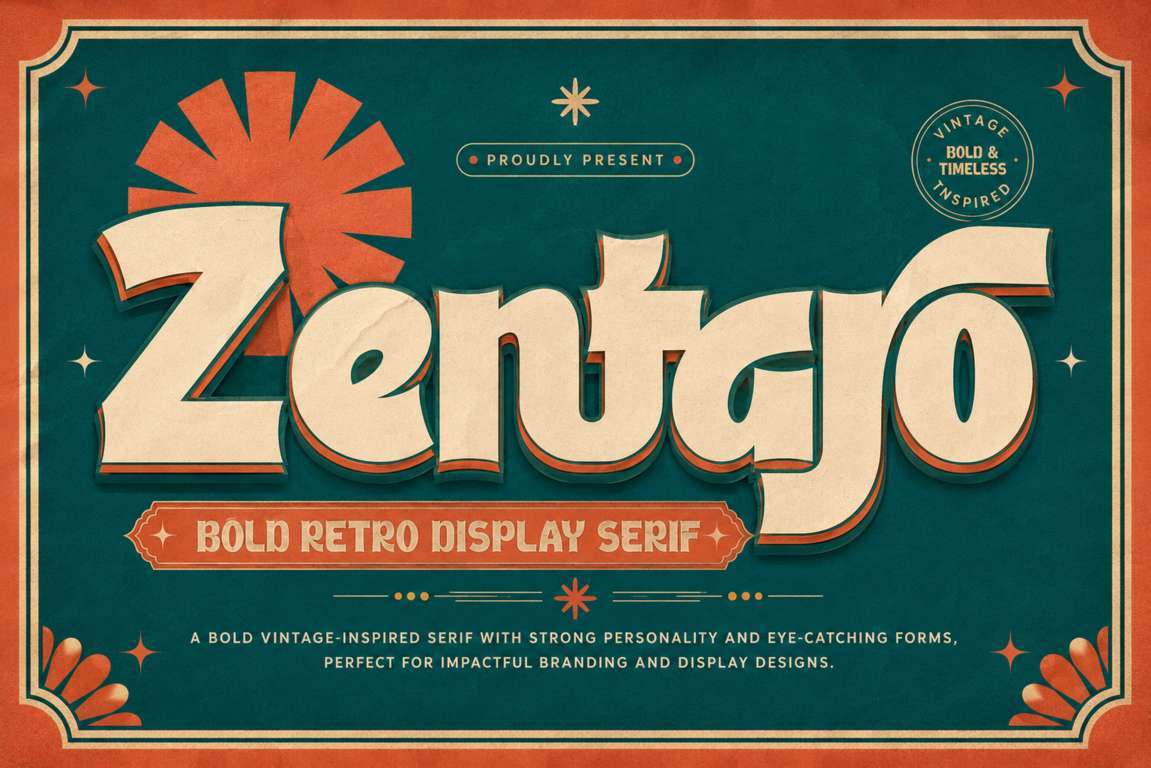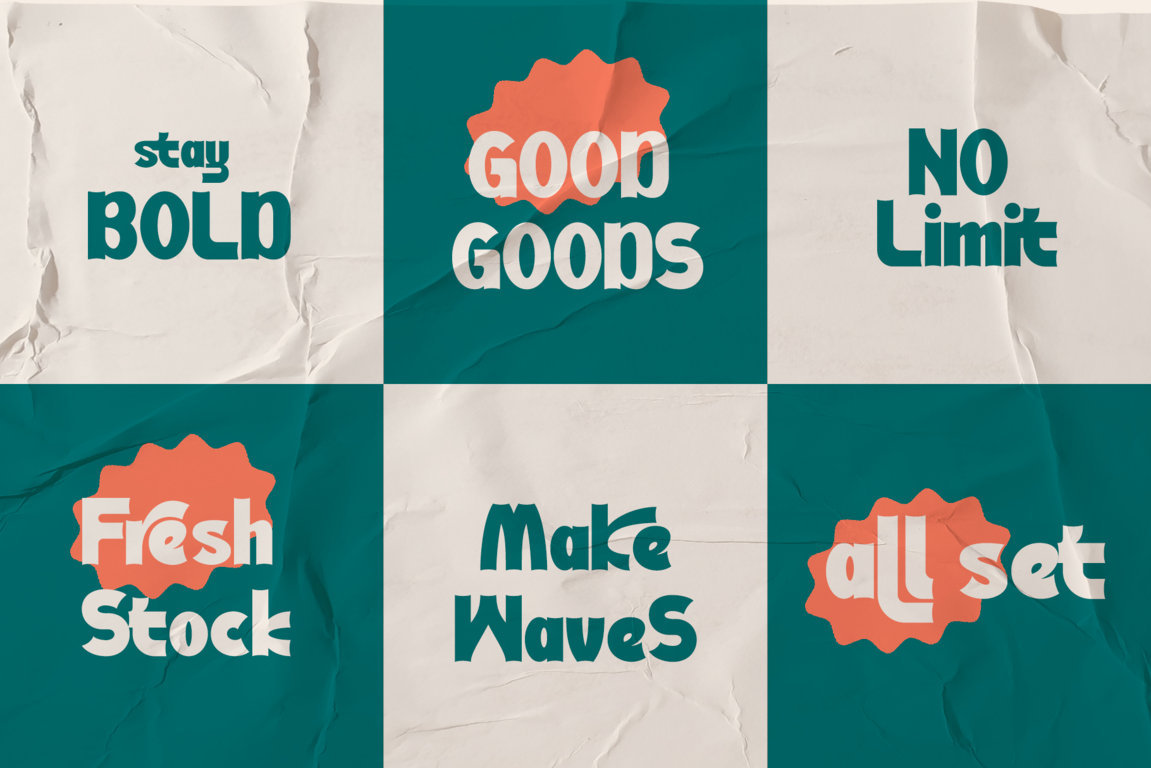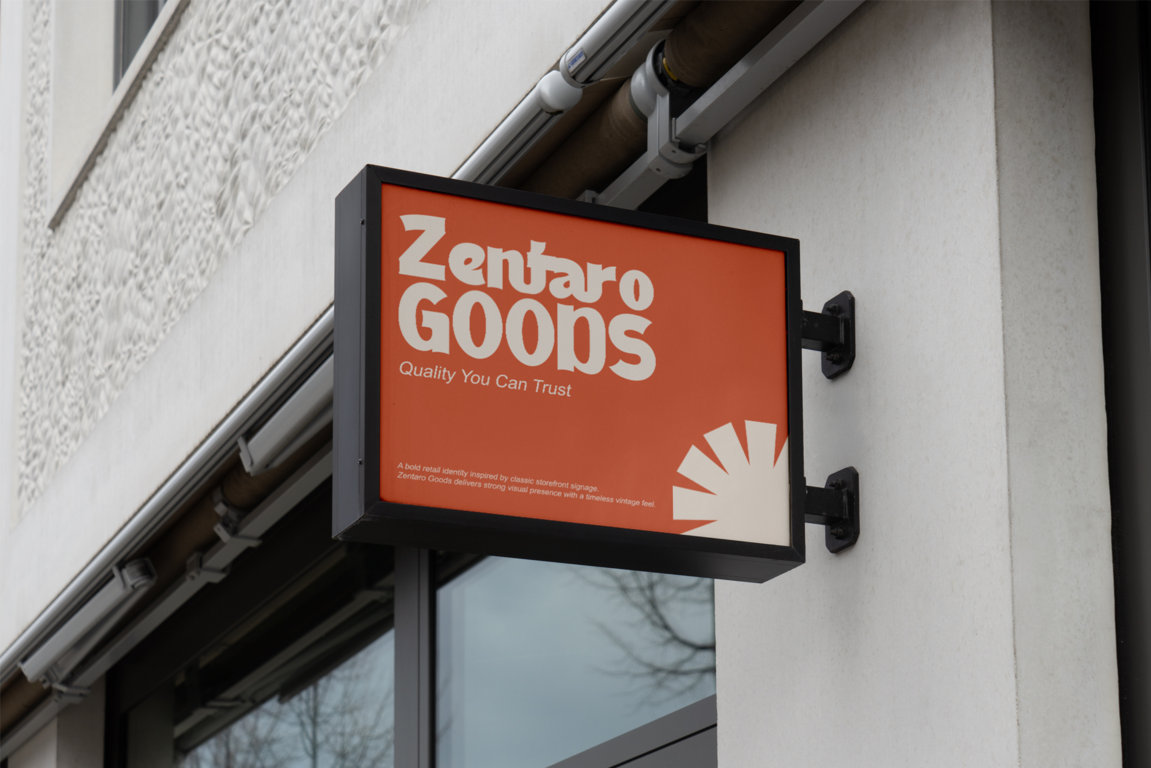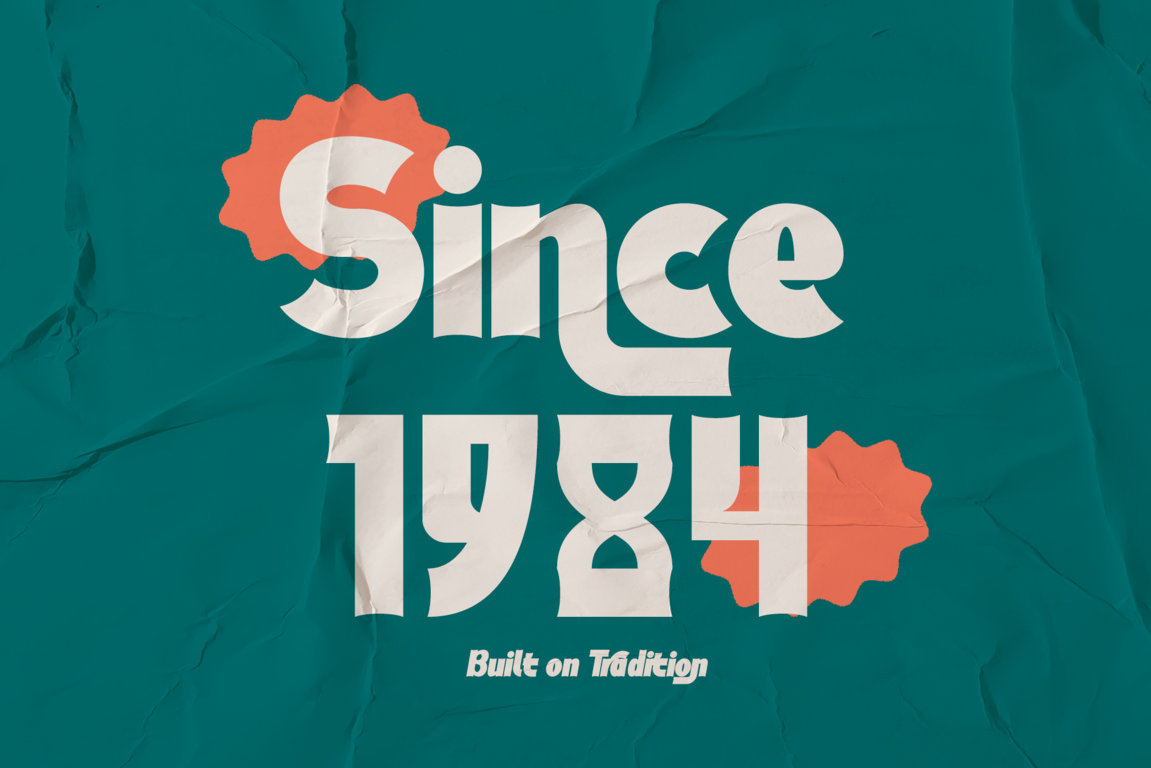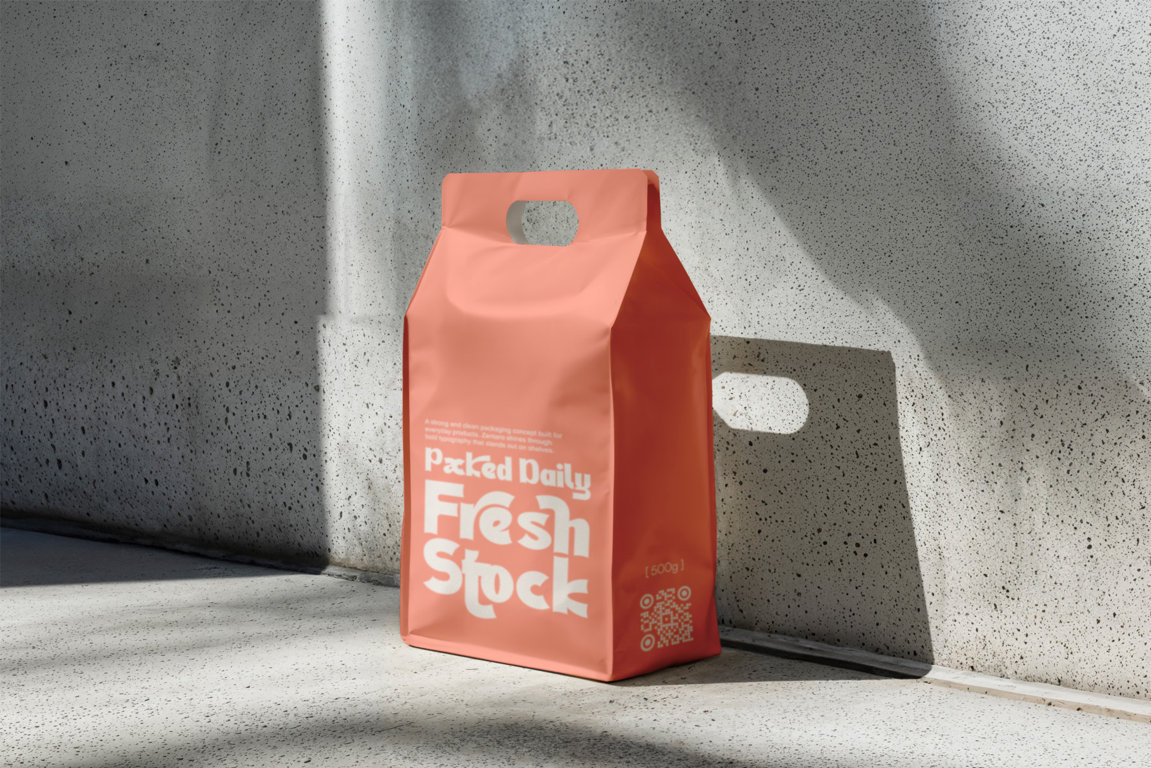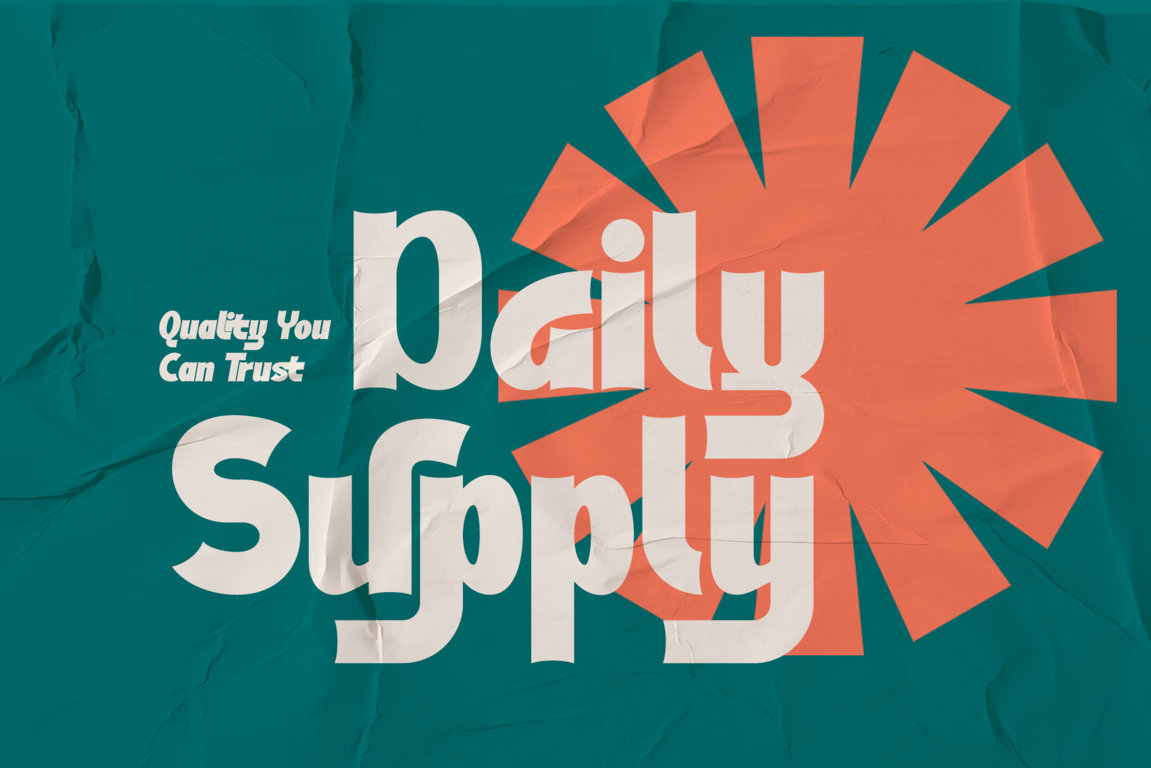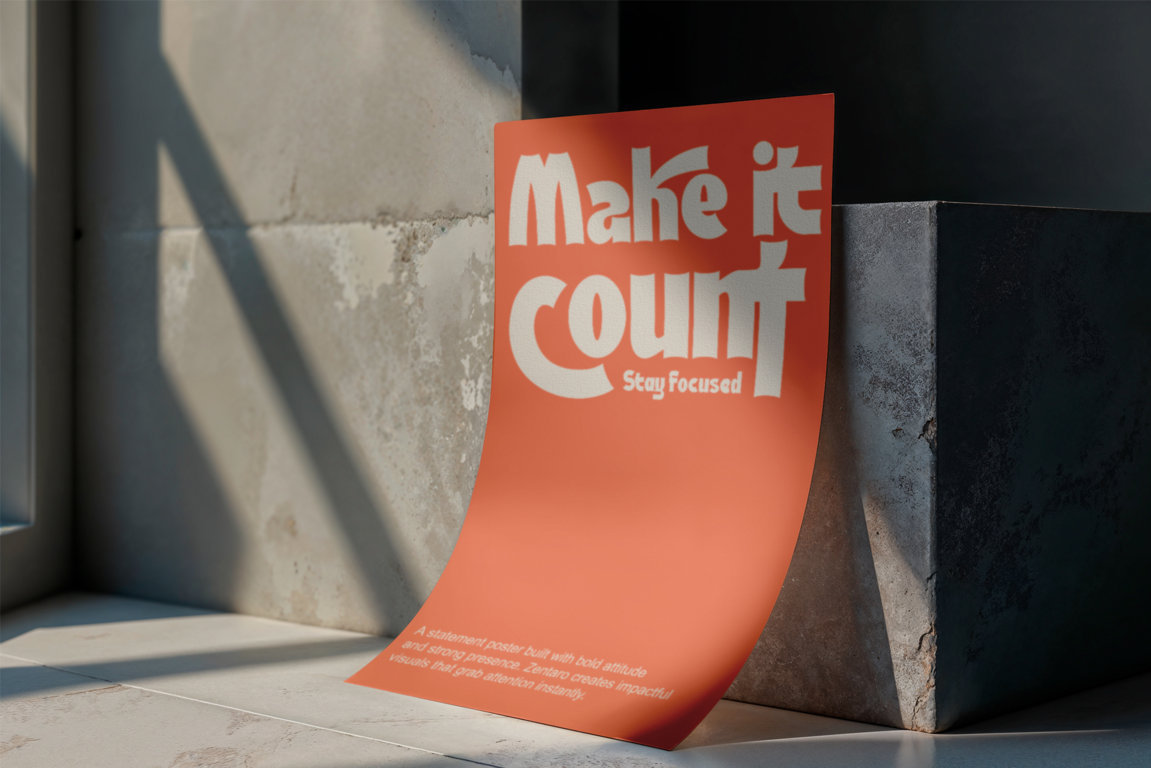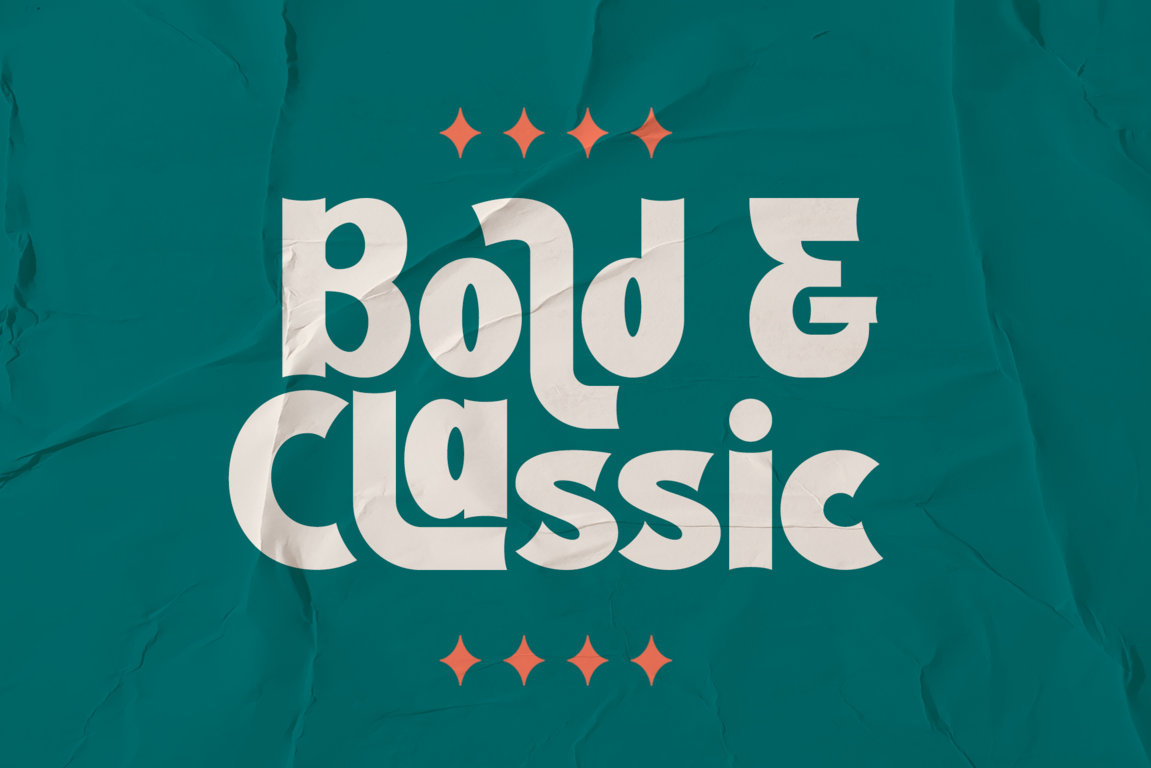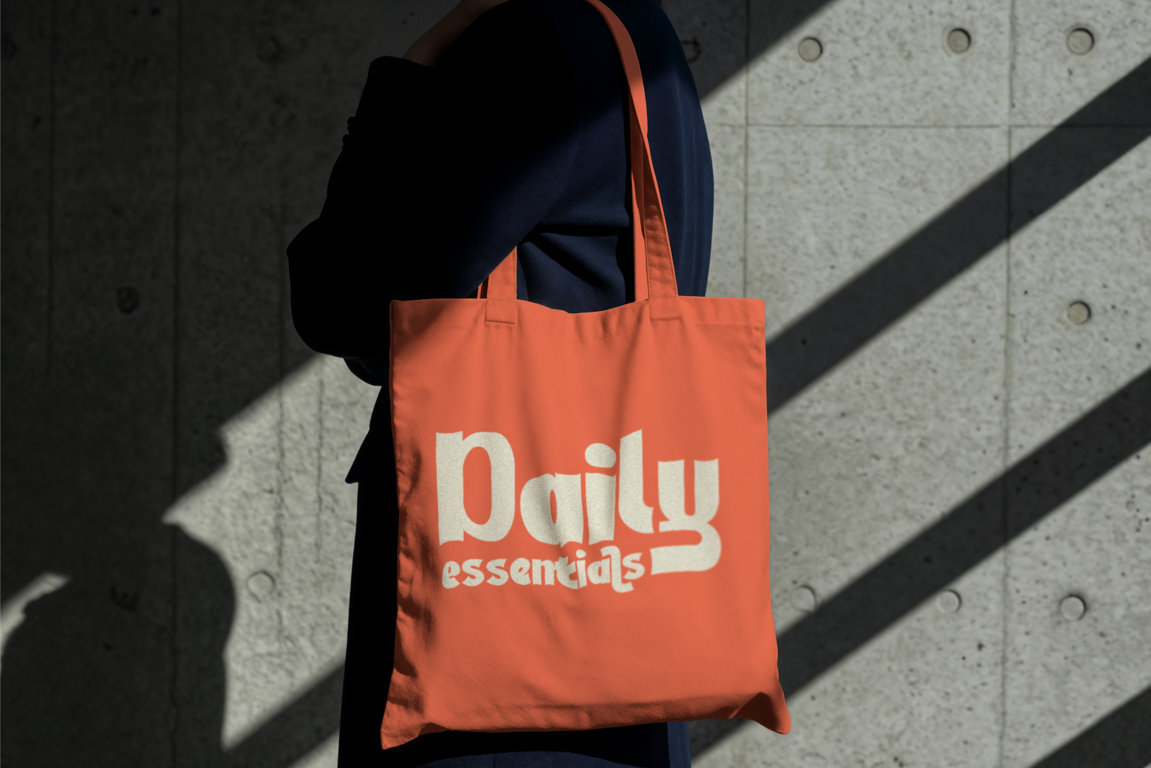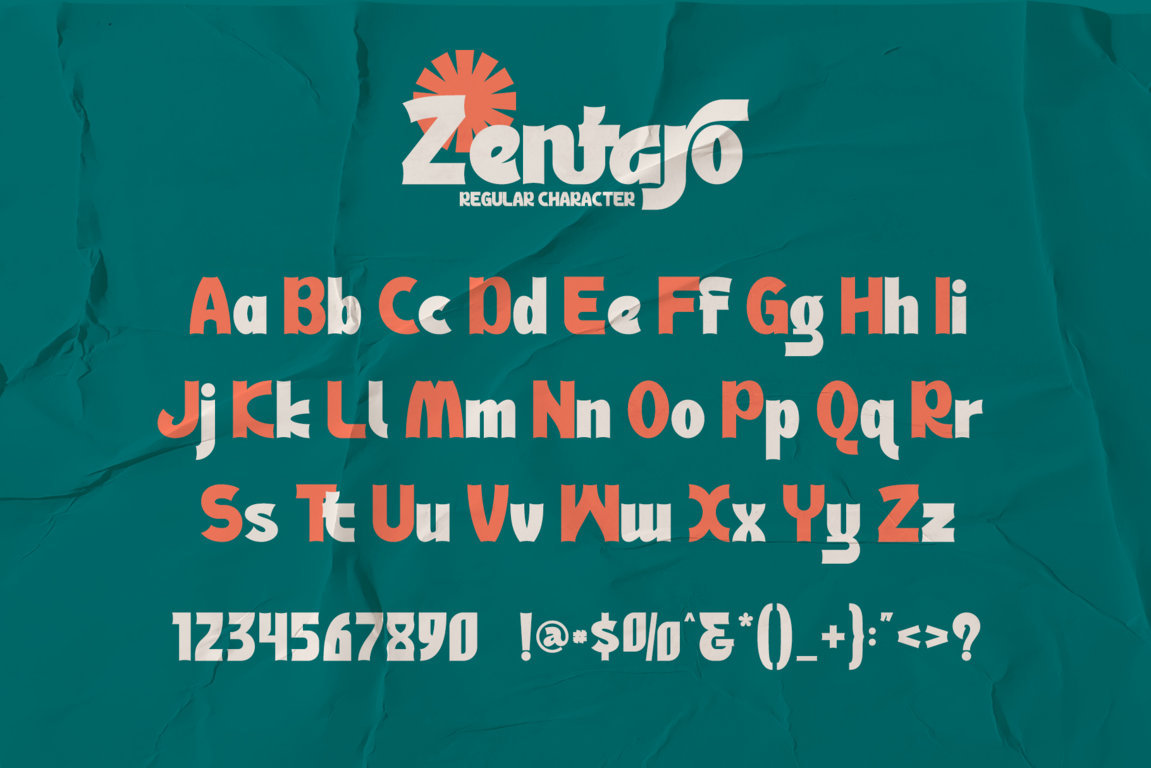
Zentaro is a bold retro display serif font created to bring vintage personality, playful energy, and unmistakable character to modern design.
Inspired by classic advertising, mid-century packaging, vintage posters, and expressive 1970s typography, Zentaro combines chunky letterforms with distinctive curves and unexpected decorative details. Its strong silhouette creates an immediate visual impact, making every title, logo, and headline feel confident, nostalgic, and memorable.
Zentaro is especially effective for retro logos, food and beverage packaging, restaurant branding, posters, apparel, product labels, album covers, social media campaigns, and other creative projects that need a bold vintage identity.
The font includes uppercase and lowercase characters, decorative swashes, alternate letterforms, titling characters, creative ligatures, accented characters, numerals, punctuation, symbols, and multilingual support. These stylistic options give you greater freedom to create unique wordmarks, custom-looking headlines, and expressive typographic compositions.
Whether you are designing nostalgic product packaging, a playful restaurant logo, an eye-catching event poster, or retro-inspired merchandise, Zentaro delivers a strong combination of personality, readability, and timeless visual appeal.
Zentaro — bold retro character made for designs that deserve attention.
Perfect For
- Retro and vintage logo design
- Food and beverage packaging
- Restaurant, café, and bakery branding
- Product labels and advertising
- Posters and event promotions
- Apparel, T-shirts, and merchandise
- Album covers and music artwork
- Social media graphics
- YouTube thumbnails and channel branding
- Stickers and greeting cards
- Editorial headlines
- Vintage signage
- Children’s and lifestyle products
- Creative packaging and display typography
Features:
- Support multilingual; ä ö ü Ä Ö Ü ß ¿ ¡
- Numerals & Punctuation
- lowercase and uppercase letters
- Alternate, swash, titling & ligature
Multilingual Support
Zentaro is a bold vintage-inspired display serif typeface designed for retro logos, food and beverage packaging, restaurant branding, posters, apparel, product labels, album artwork, social media graphics, and promotional designs. The font includes uppercase and lowercase letters, swashes, alternate characters, titling forms, creative ligatures, accented characters, numbers, punctuation, symbols, and multilingual support.